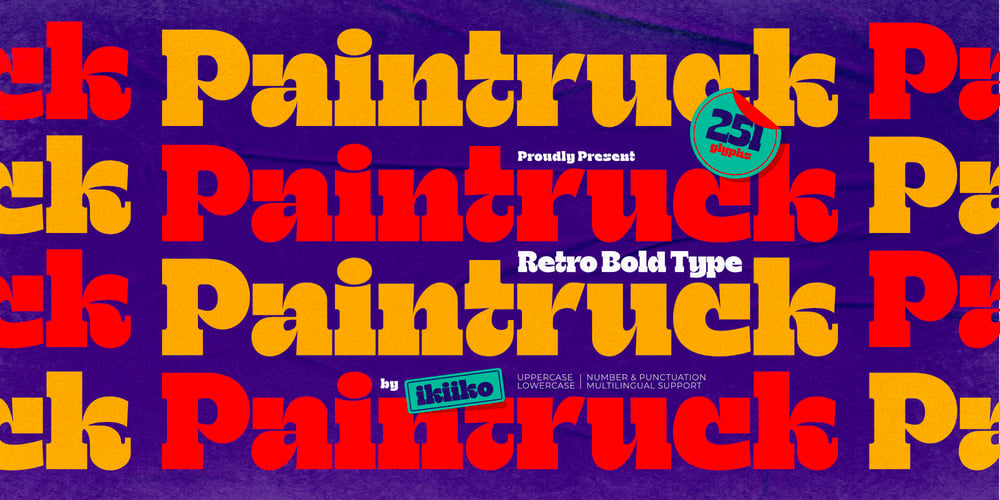
Paintruck Font Family was designed by Wahyu Eka Prasetya, Andhika Pradana and published by IKIIKOWRK. Paintruck contains 1 styles and family package options. Proudly present Paintruck – Retro Bold Type, created by ikiiko.A bold vintage serif font with a strong, powerful style that instantly evokes a sense of the past with its pop-retro vibes. The ability of Paintruck to conjure a sense of nostalgia while still seeming current and new is what truly sets it distinct.Get also a good offer & FREEBIE at our site : www.ikiiko.comEnjoy our font and if you have any questions, you can contact us by email : ikiikowrk@gmail.com